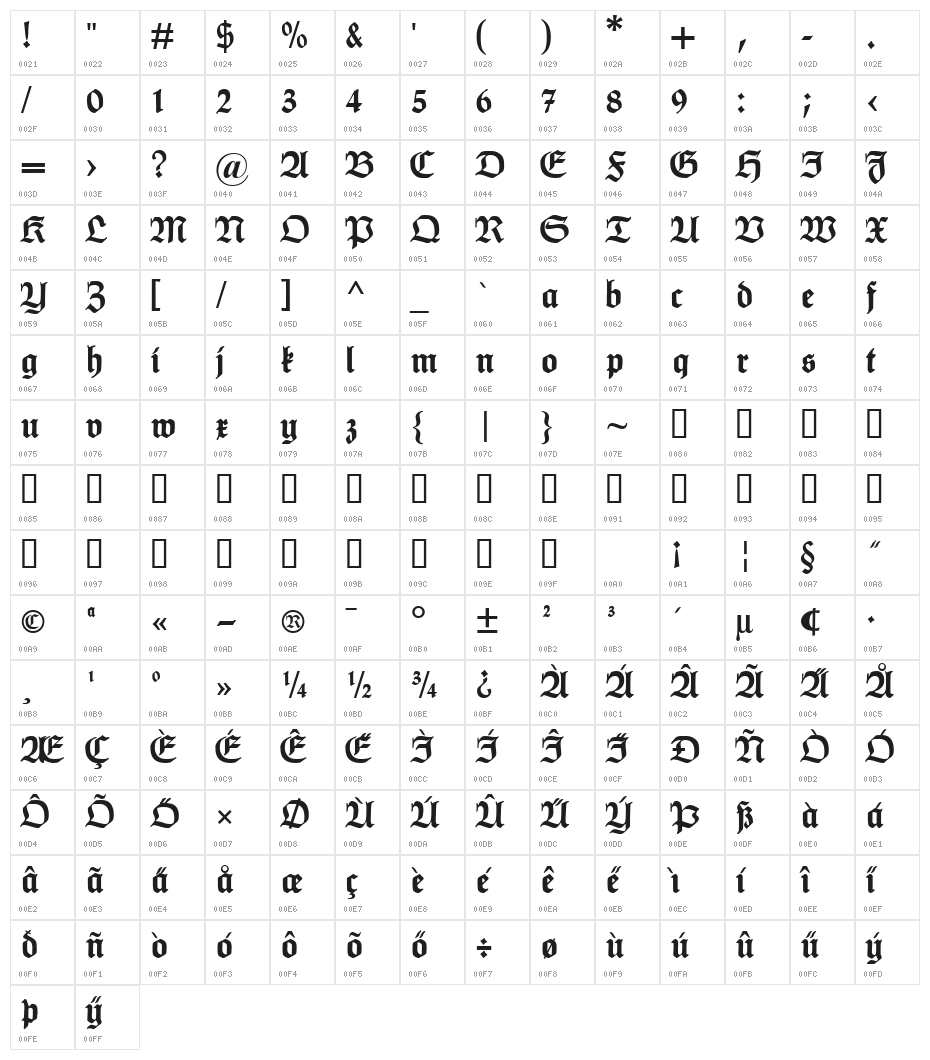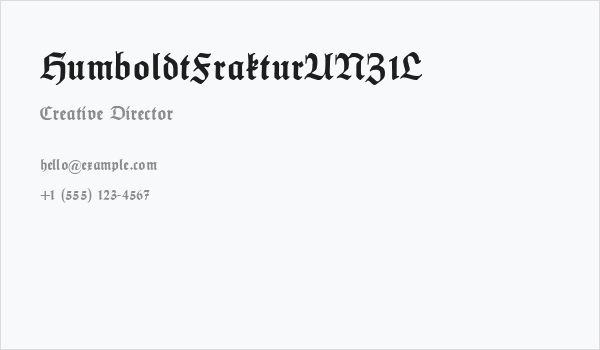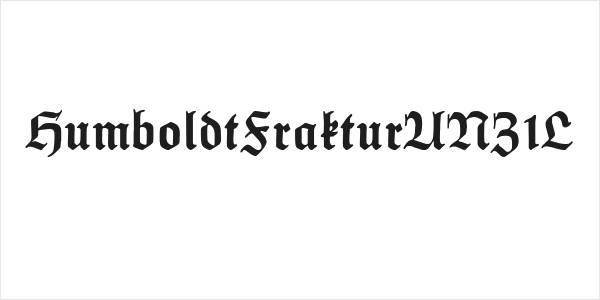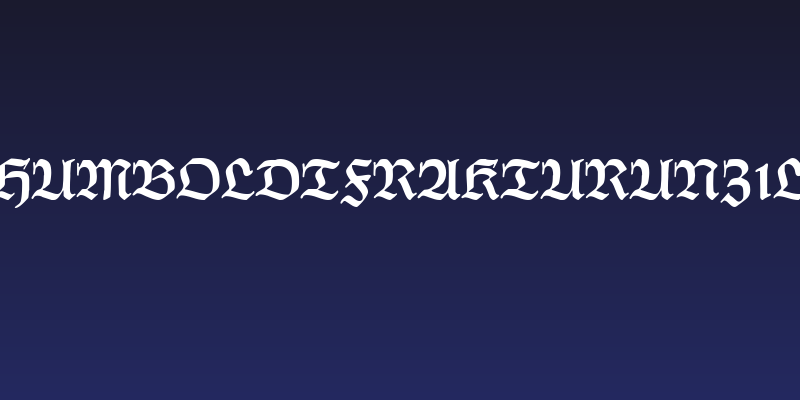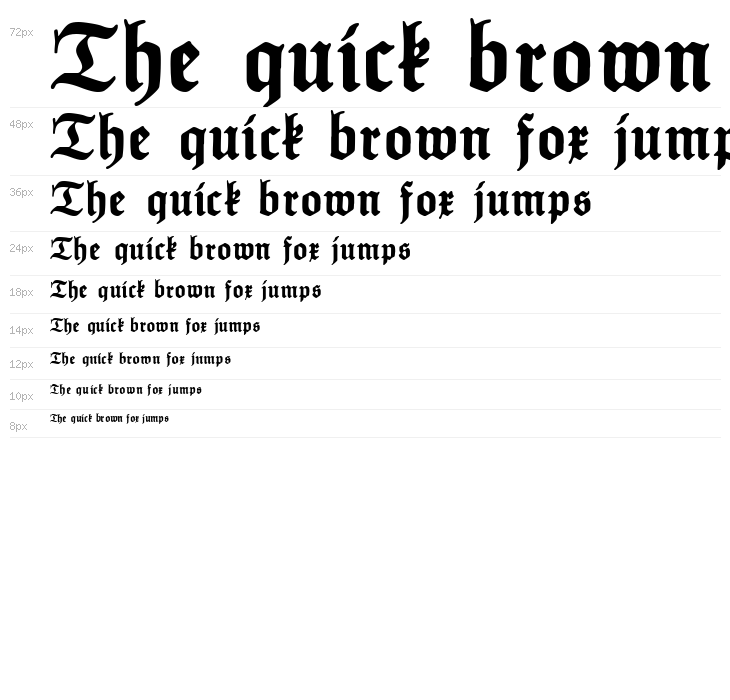
HumboldtFrakturUNZ1L Font
HumboldtFrakturUNZ1L Description
This font exhibits a traditional and ornate style, reminiscent of historical script used in medieval manuscripts. The characters are bold and feature intricate detailing, with sharp angles and flourishes that give it a distinctive, gothic appearance. The uppercase letters are particularly elaborate, with extended serifs and decorative elements that enhance their visual impact. The lowercase letters maintain a consistent style, with a slightly more subdued design that complements the uppercase characters. The numerals and special characters are crafted with the same attention to detail, ensuring a cohesive look across all elements.